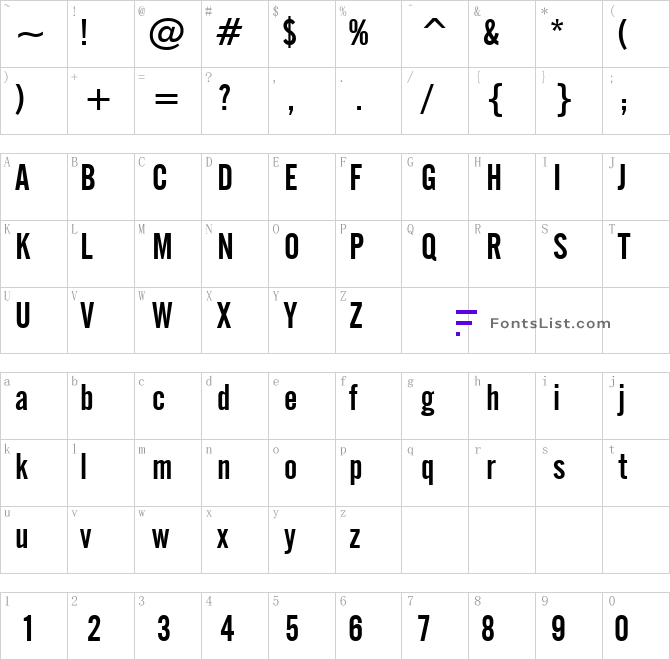
- Font Name:AlternateGothic2 BT
- Subfamily:Alternate Gothic No.2, Gothic 729
- Full Name:Alternate Gothic No.2 BT
Alternate-Gothic-No2-BT.ttf is a very beautiful artistic font, Alternate-Gothic-No2-BT.ttf is widely used in the design and printing of various books and pictures,Alternate-Gothic-No2-BT.ttf has a strong visual impact,Alternate-Gothic-No2-BT.ttf is a commonly used font in newspapers, magazines and books, and is used in posters, e-commerce Poster design, store design, logo design, font design and other fields.Alternate-Gothic-No2-BT.